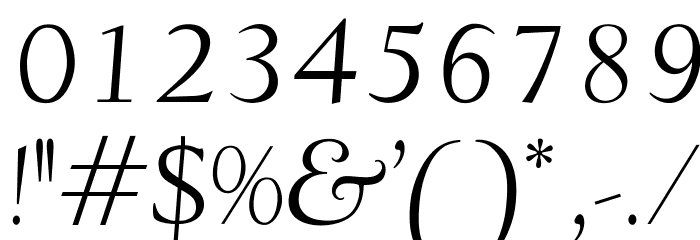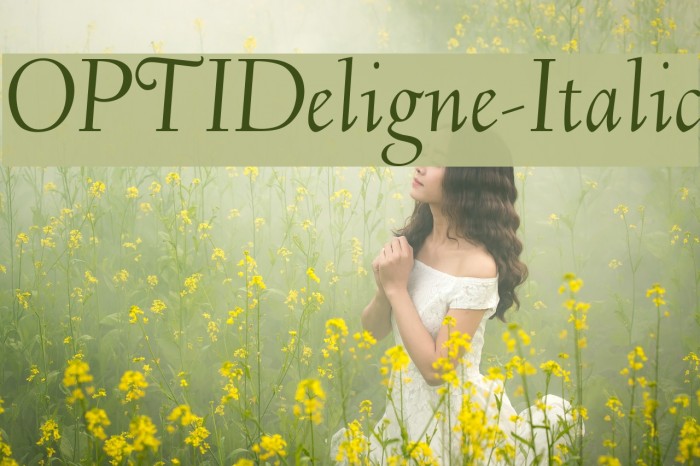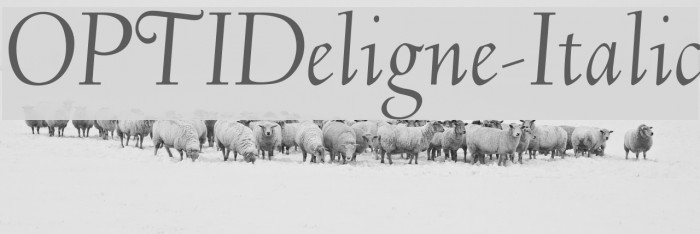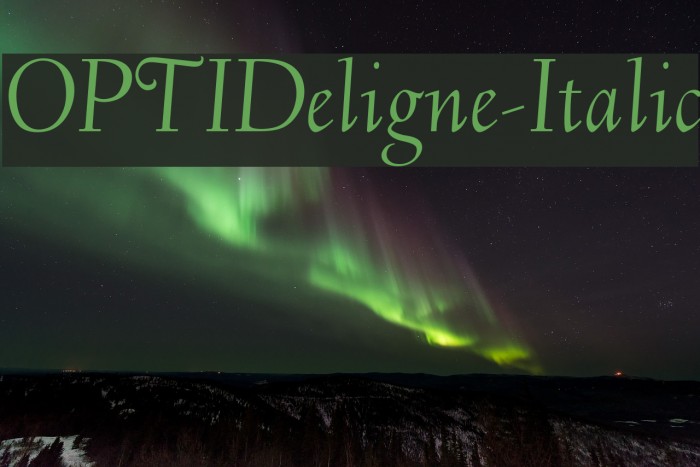
OPTIDeligne-Italic Font
This typeface features elegant, flowing lines with a distinct italic slant, giving it a sophisticated and refined appearance. The characters are well-proportioned, with a moderate contrast between thick and thin strokes, enhancing readability while maintaining an artistic flair. The uppercase letters exhibit a classic formality, while the lowercase letters are more fluid and dynamic, adding a touch of grace. The numerals are clear and balanced, complementing the overall aesthetic. Special characters are thoughtfully designed, integrating seamlessly with the rest of the typeface. This font is versatile, suitable for both formal and creative applications.
An elegant italic typeface with flowing lines and moderate contrast.
- Proposed Projects: Ideal for wedding invitations, elegant branding, book covers, and editorial design.
- Category: Serif
- Overall Style: Classic
- Use Case: Headlines, Body text, Logos